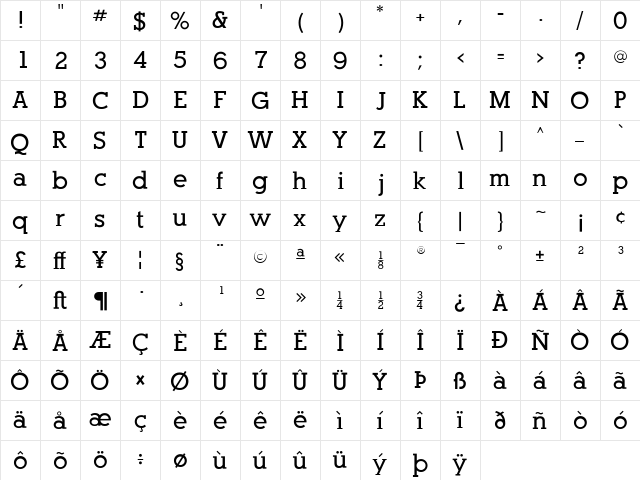
AlexandriaFLF Bold
| Foundry | by Richard A. Ware |
| Year | 1986 |
Design Context for AlexandriaFLF Typeface
AlexandriaFLF is a composed and adaptable typeface that performs quietly and consistently across a wide range of design contexts. The heavy weight commands attention and anchors typographic hierarchies.